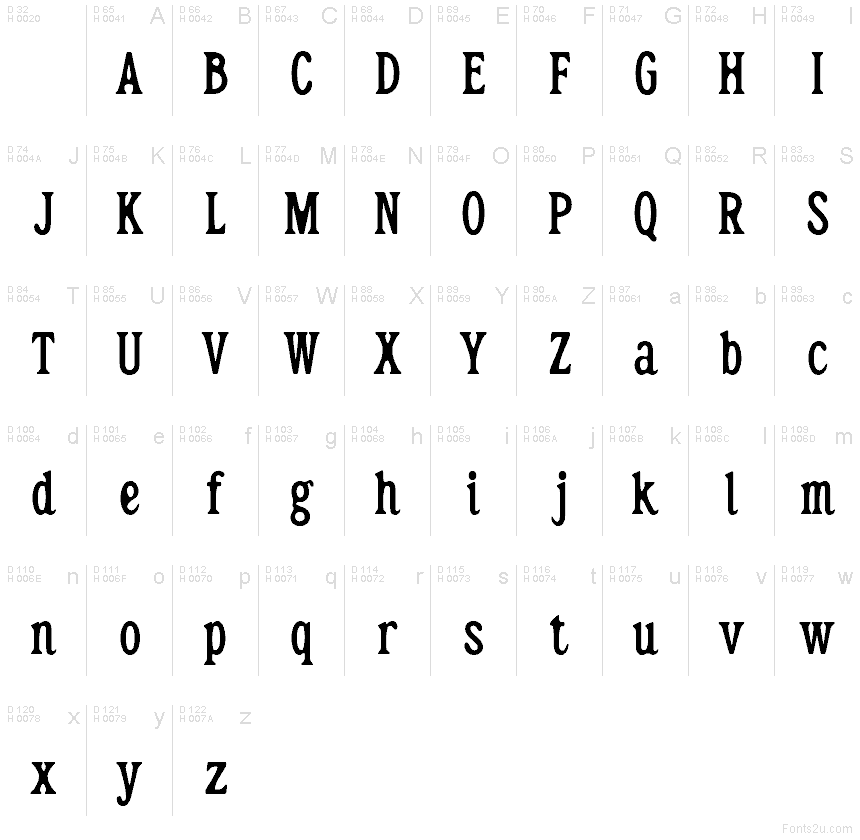
CSLustyDrawn-Regular Demo
CS Lusty Drawn font by Craft Supply Co. is a free classical serif font embodying a retro aesthetic with an elegant vintage twist. Its well-balanced characters combine nicely either in short or long texts. The faded lines and condensed style of this font grant it a unique presence that gets noticed whenever used.